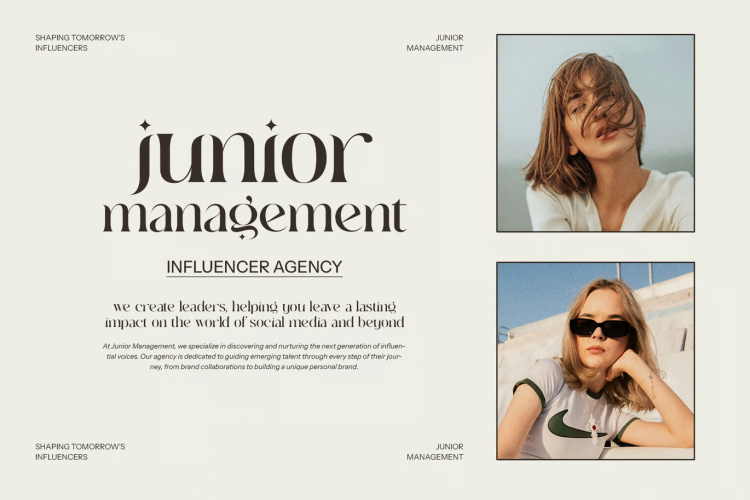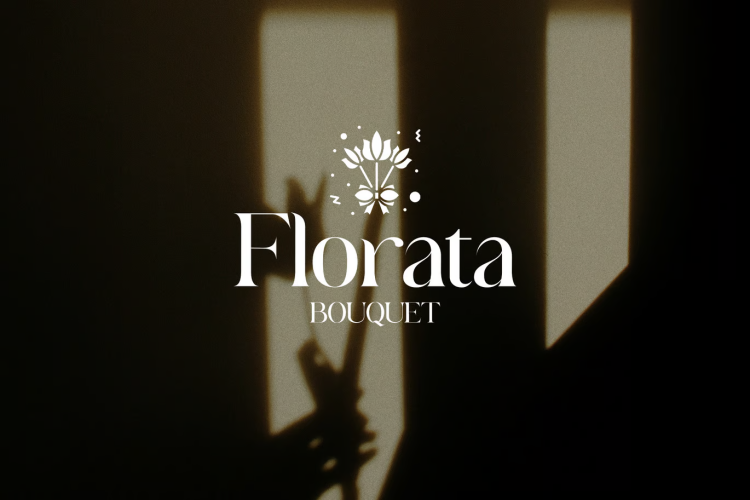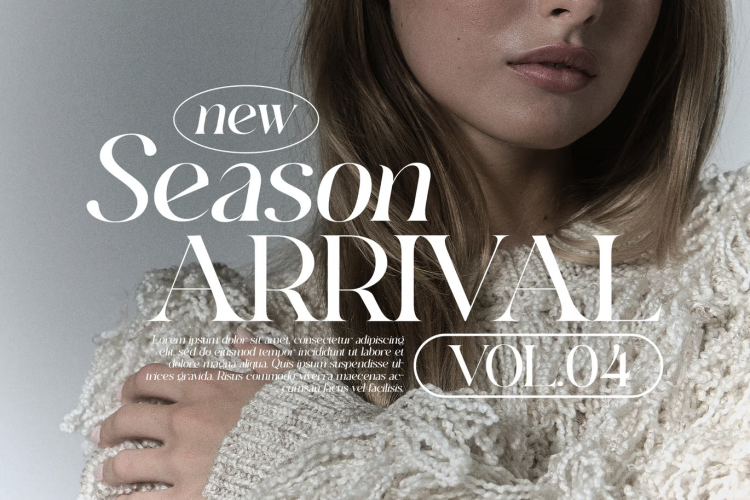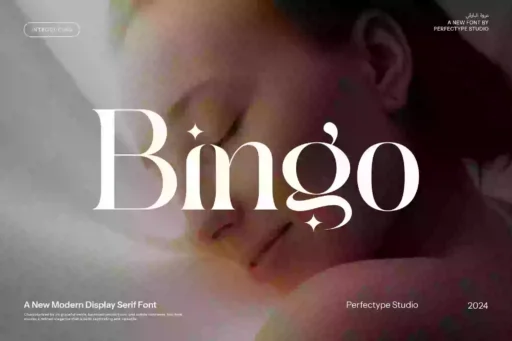
Bingo Font
This serif font adds a touch of class and luxury. It works well for logos, branding, and all design projects. Its stylish look makes designs feel premium and expensive.
Use this font for:
Branding projects
Logos & social media posts
Ads & product packaging
Labels & photography
Wedding designs & invitations
Watermarks & stationery
Its clean and readable style makes every design stand out. Perfect for any project that needs a sophisticated touch.
Bingo Font is a Serif Fonts font that brings a professional and versatile look to your projects. This serif font adds a touch of class and luxury.